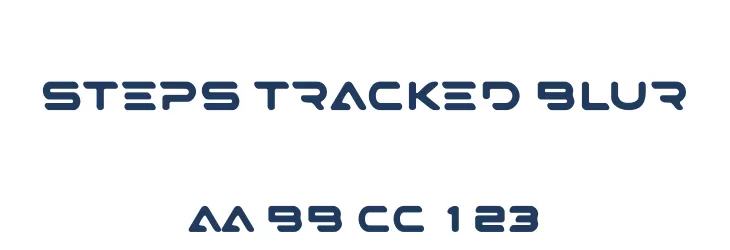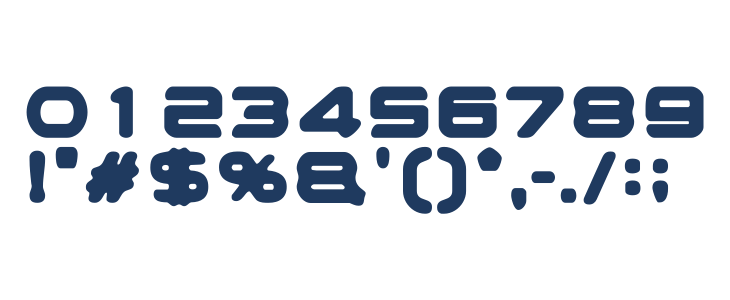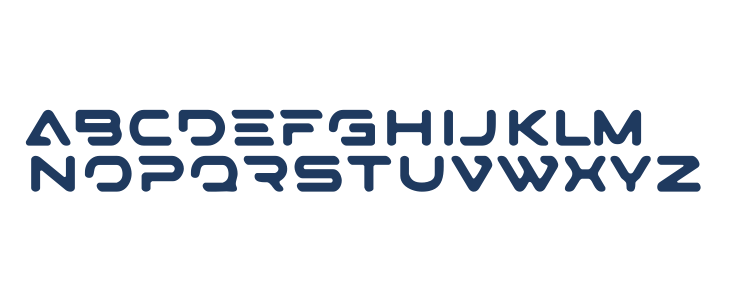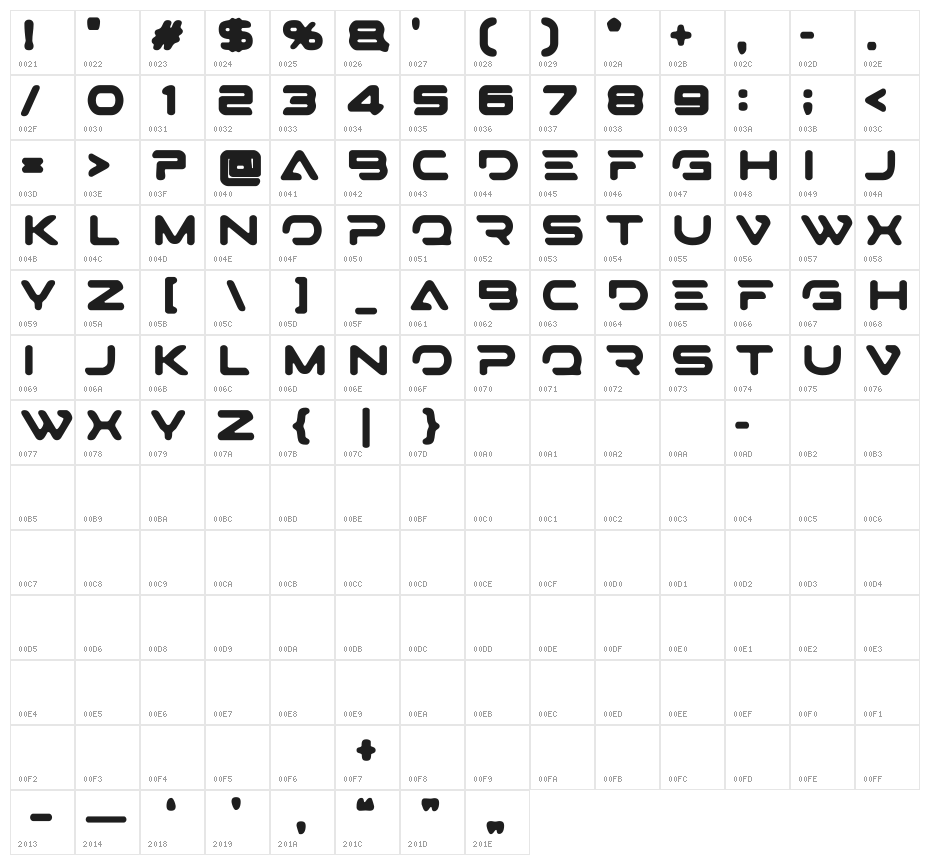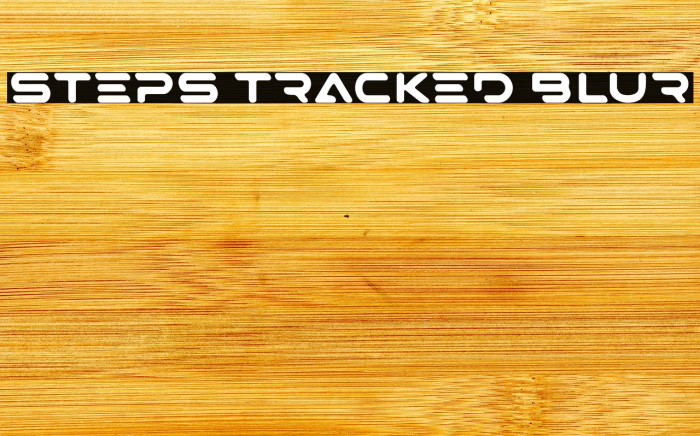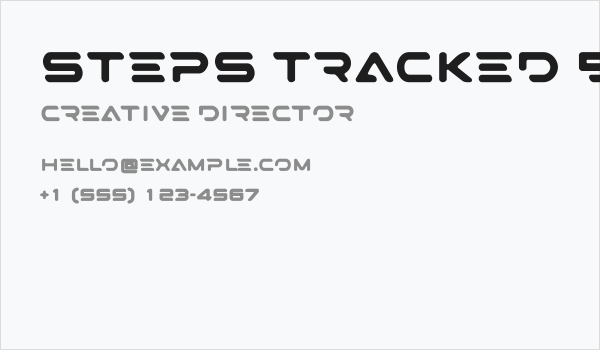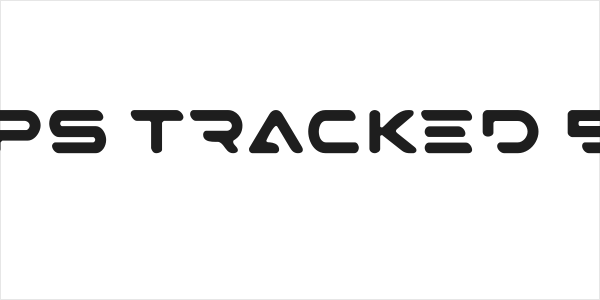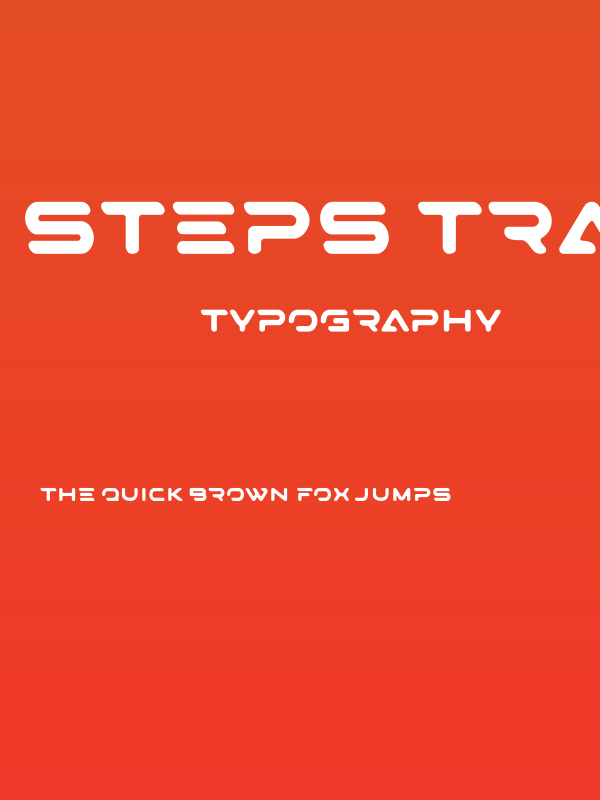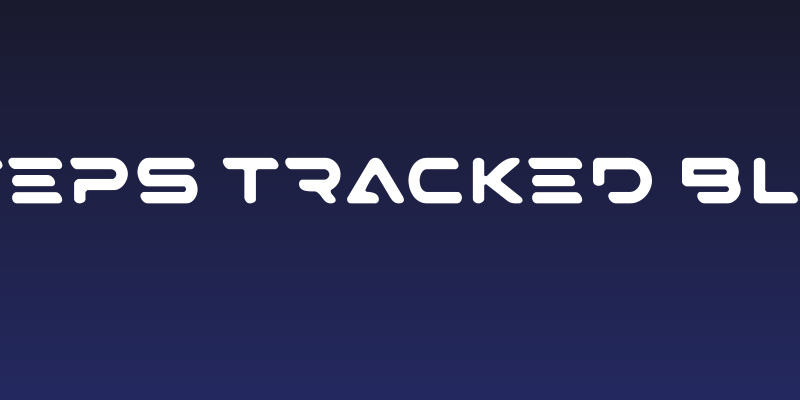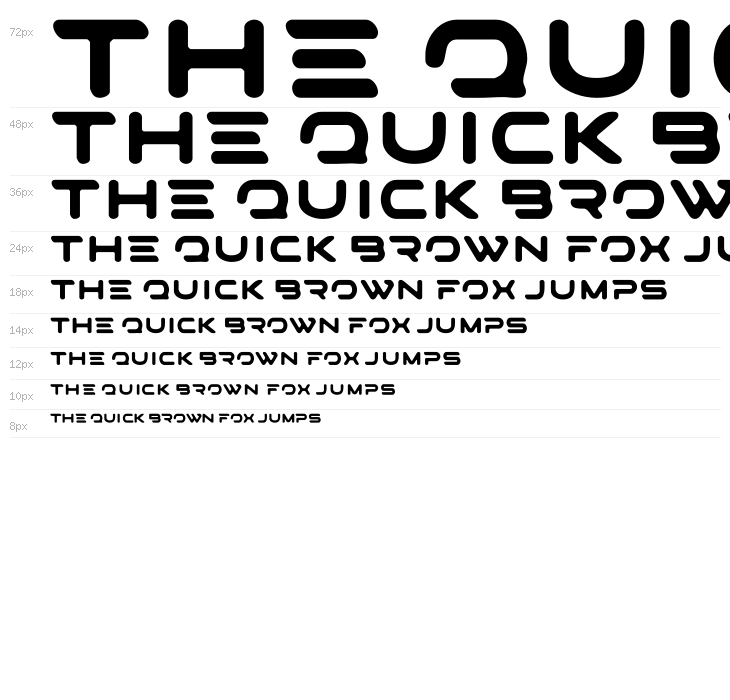
STEPS Tracked Blur Font
STEPS Tracked Blur Description
This font features a futuristic and geometric design with a distinct stencil-like appearance. The characters are bold and rounded, with consistent stroke thickness throughout. The design incorporates breaks in the strokes, giving it a modern and industrial feel. The uppercase and lowercase letters maintain a uniform style, enhancing readability while adding a unique visual interest. The numerals and special characters follow the same design principles, ensuring a cohesive look across all glyphs. This font's style is ideal for projects that require a contemporary and edgy aesthetic.
| Proposed Projects | Ideal for branding, posters, sci-fi themed designs, and digital interfaces. |